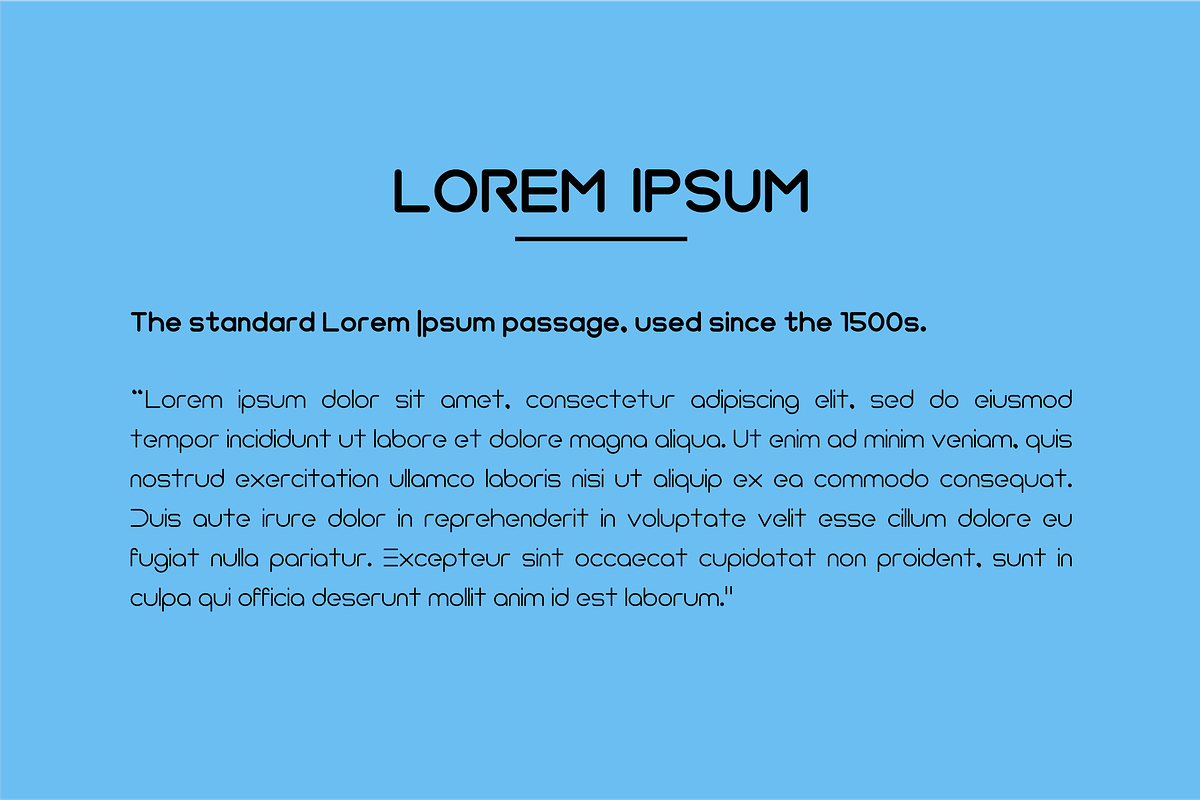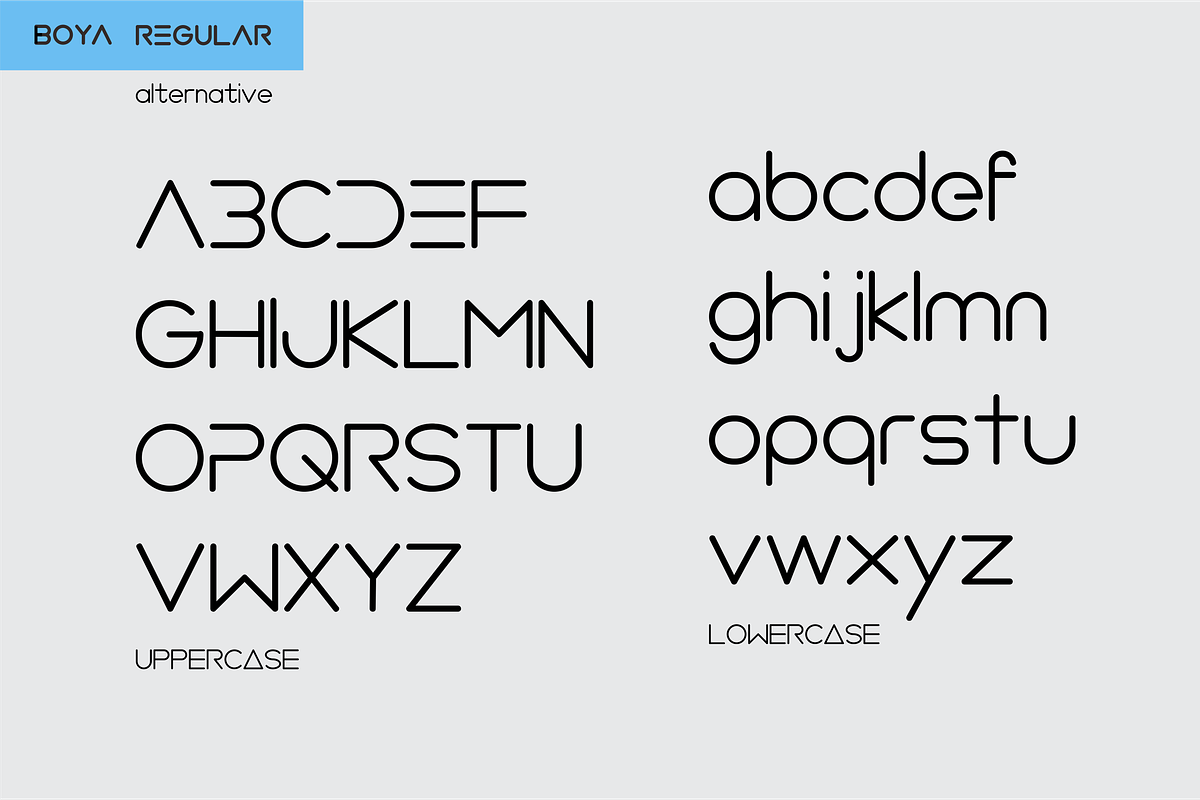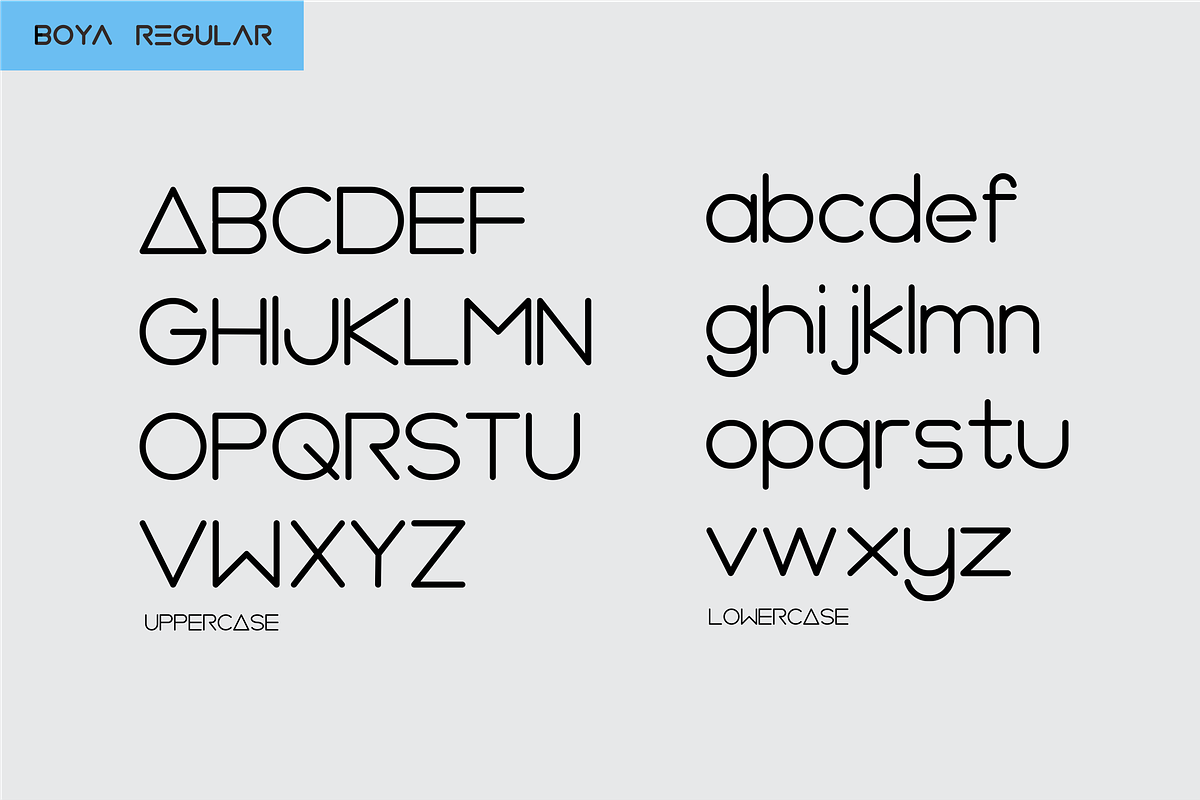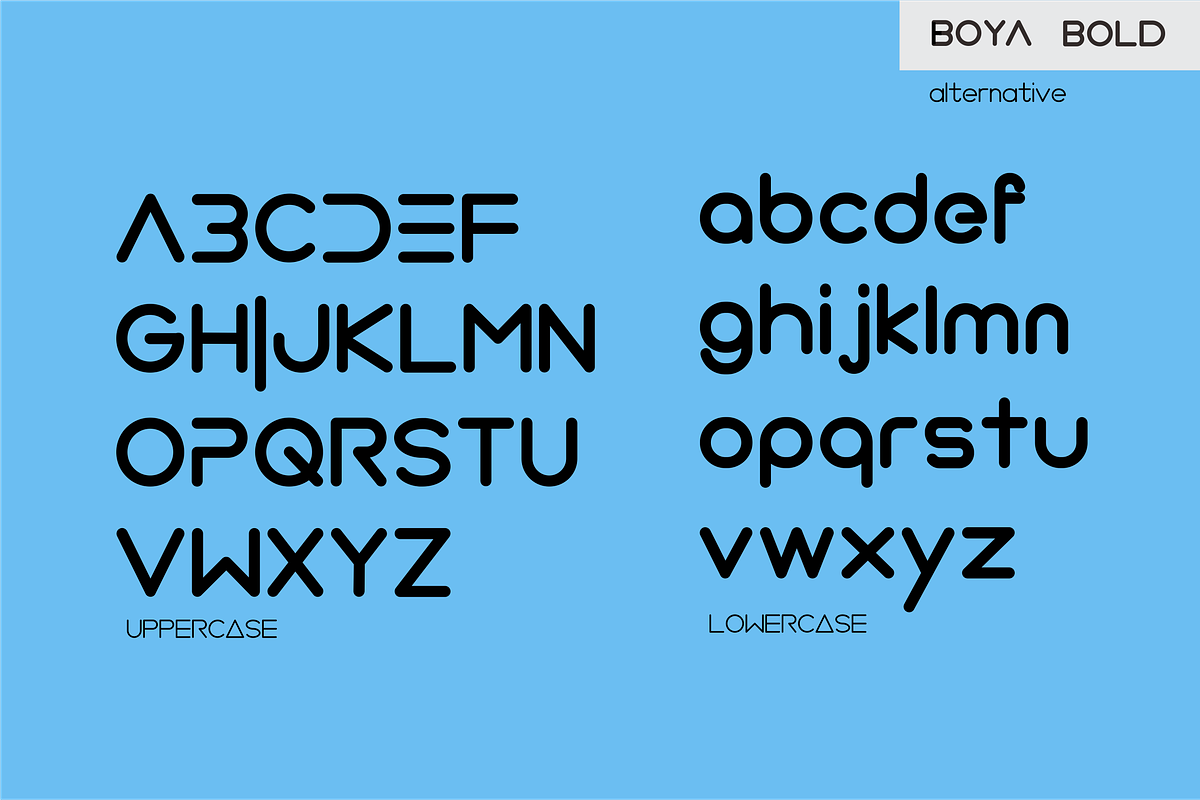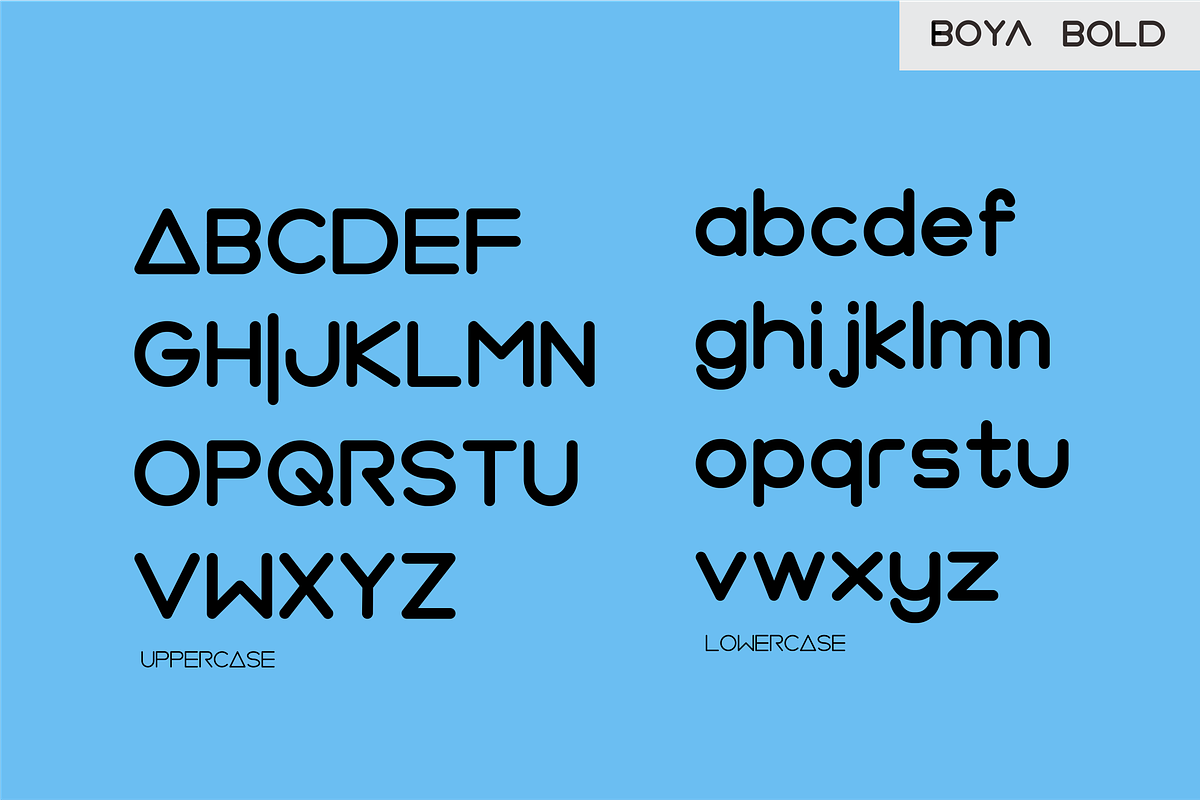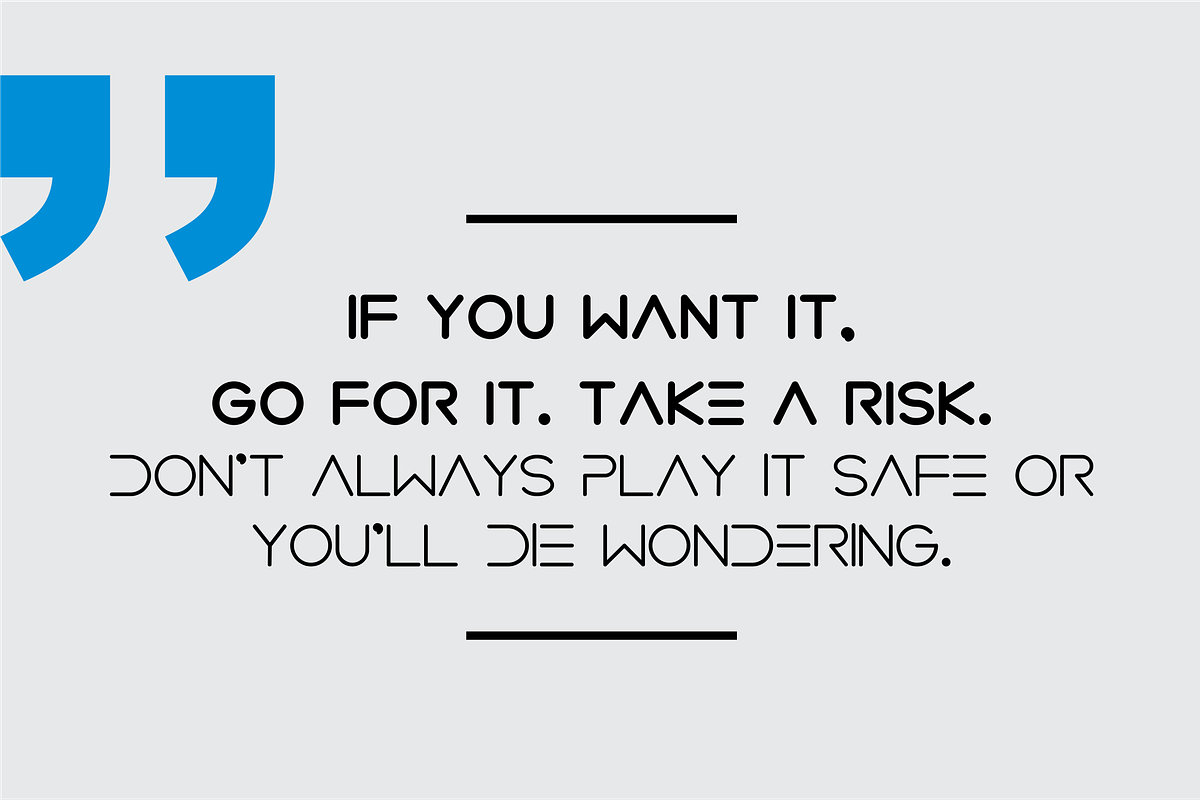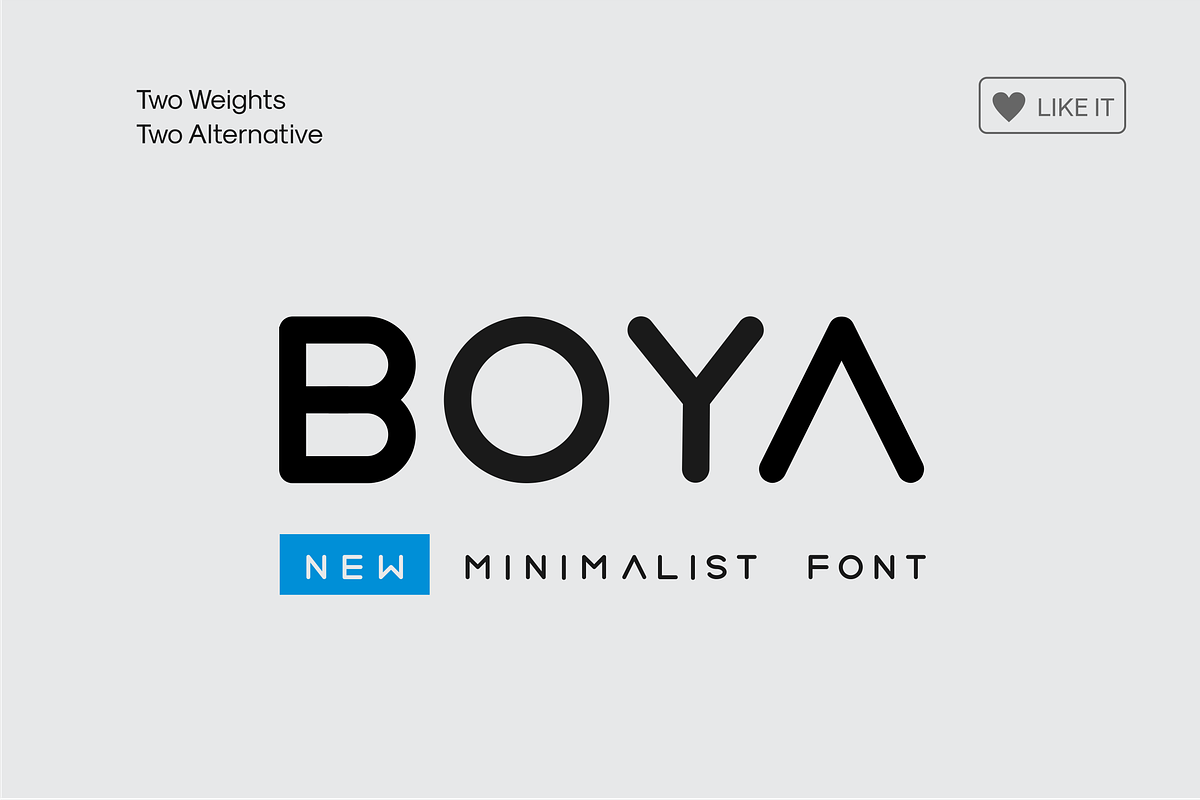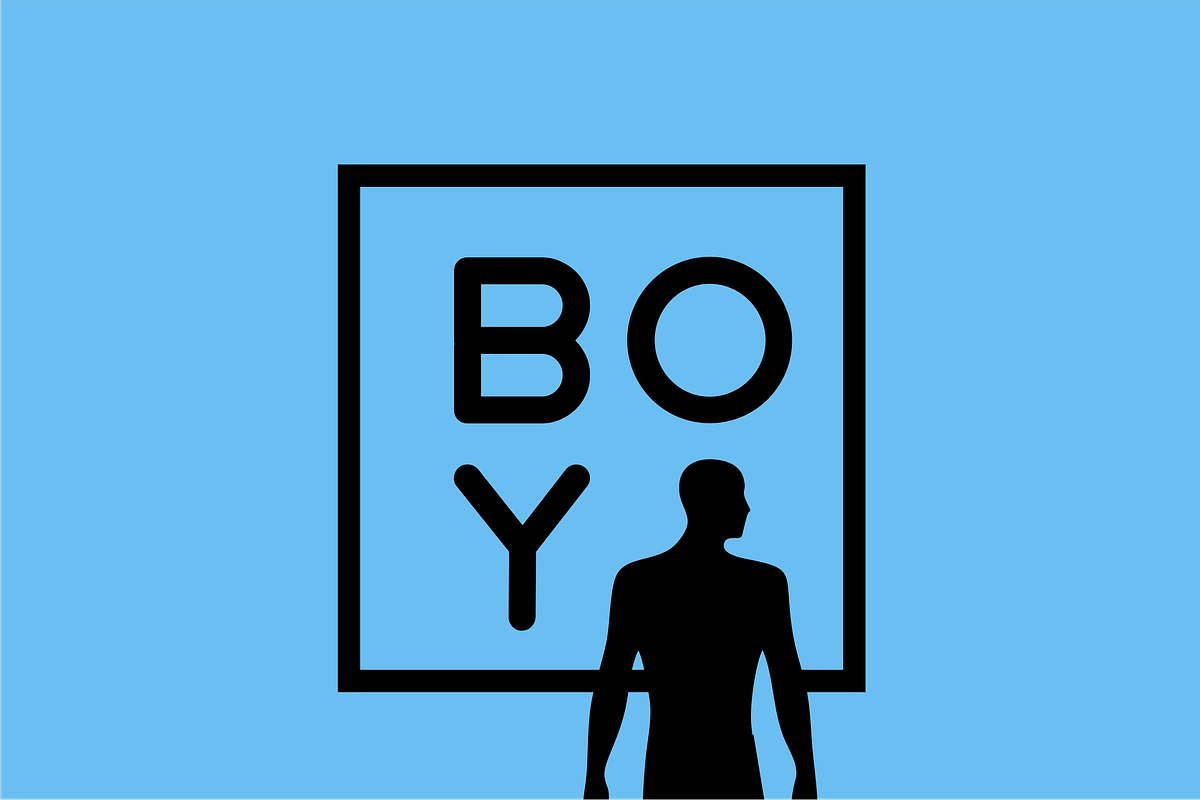
BOYA (Rounded Font )
new minimalism rounded typeface it’s perfect for namecard, poster, logo, magazine, cover, banner, tshirt and headers, logo and other any business related.
- BOYA alternative Regular
- BOYA Alternative Bold
- BOYA Regular
- BOYA Bold
Why BOYA (Rounded Font ) is worth a look
BOYA (Rounded Font ) by Akdesain fits naturally into Branding, posters, packaging, typography.